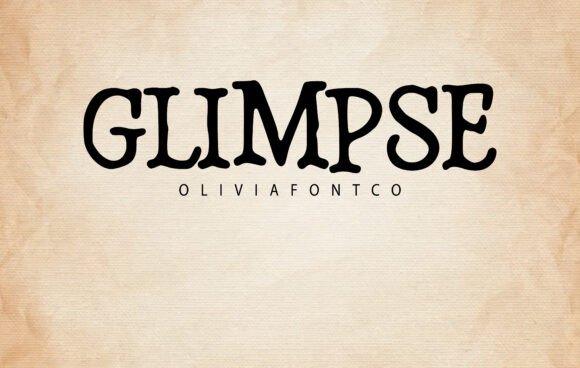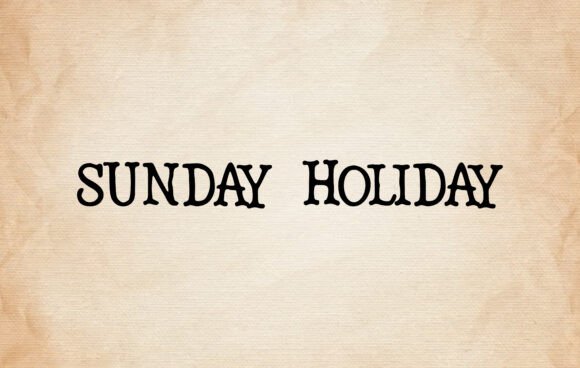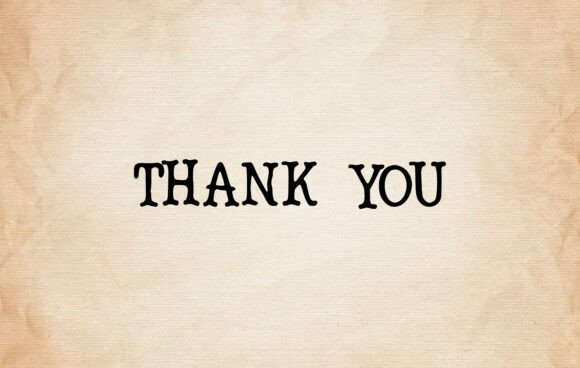
Glimpse Font: A Unique & Legible Serif Font for Branding & Logo Design
About the Glimpse Font
Step up your design game with Glimpse Font, a font that exudes confidence and style. glimpse Expertly designed to be a true favorite, this font has the potential to take your creative ideas to the highest level
This font is legible and looks great as a title or body text. This font would be perfect for many different designs for magazine headlines, t-shirt,social media, branding, wedding invitations, cards, etc.
Glimpse’s strong, yet refined forms make it ideal for headlines, logos, and short-form text in branding materials. Its legibility shines in posters and packaging where impact is key. However, its slightly condensed letterforms make it less suitable for extensive body copy or UI elements requiring optimal readability at smaller sizes.
The font projects a confident, modern personality. It suits brands seeking a sophisticated yet approachable image—think high-end fashion, contemporary architecture, or innovative technology. Pairing Glimpse with a clean sans-serif like Montserrat for body text or a playful script like Pacifico for accents creates a balanced and visually appealing design.
Consider pairing it with a geometric sans-serif for a more contemporary feel, or a classic serif like Garamond for a touch of timeless elegance, depending on the desired aesthetic.
Glimpse Font Usage Examples
Glimpse Font Example